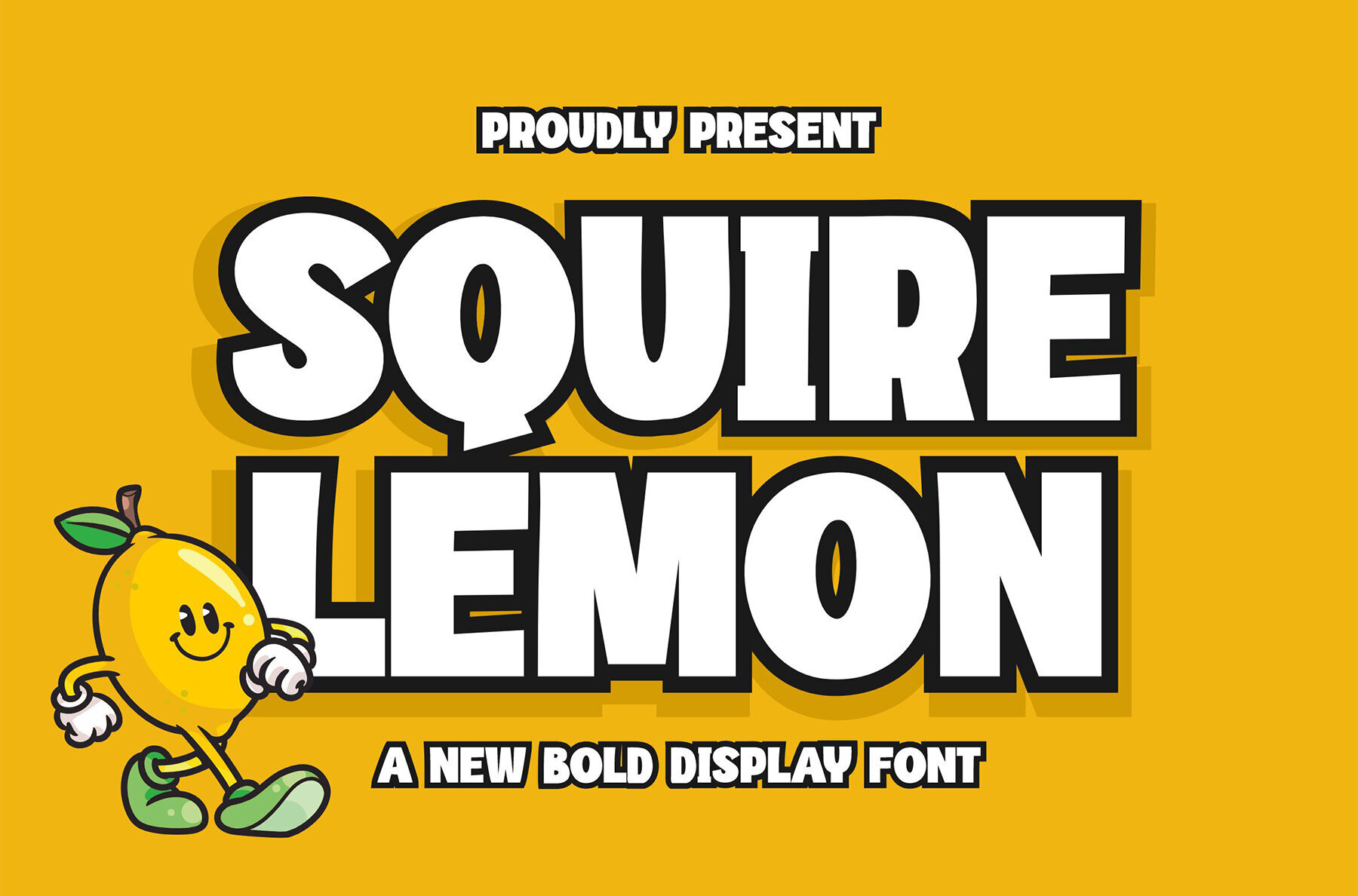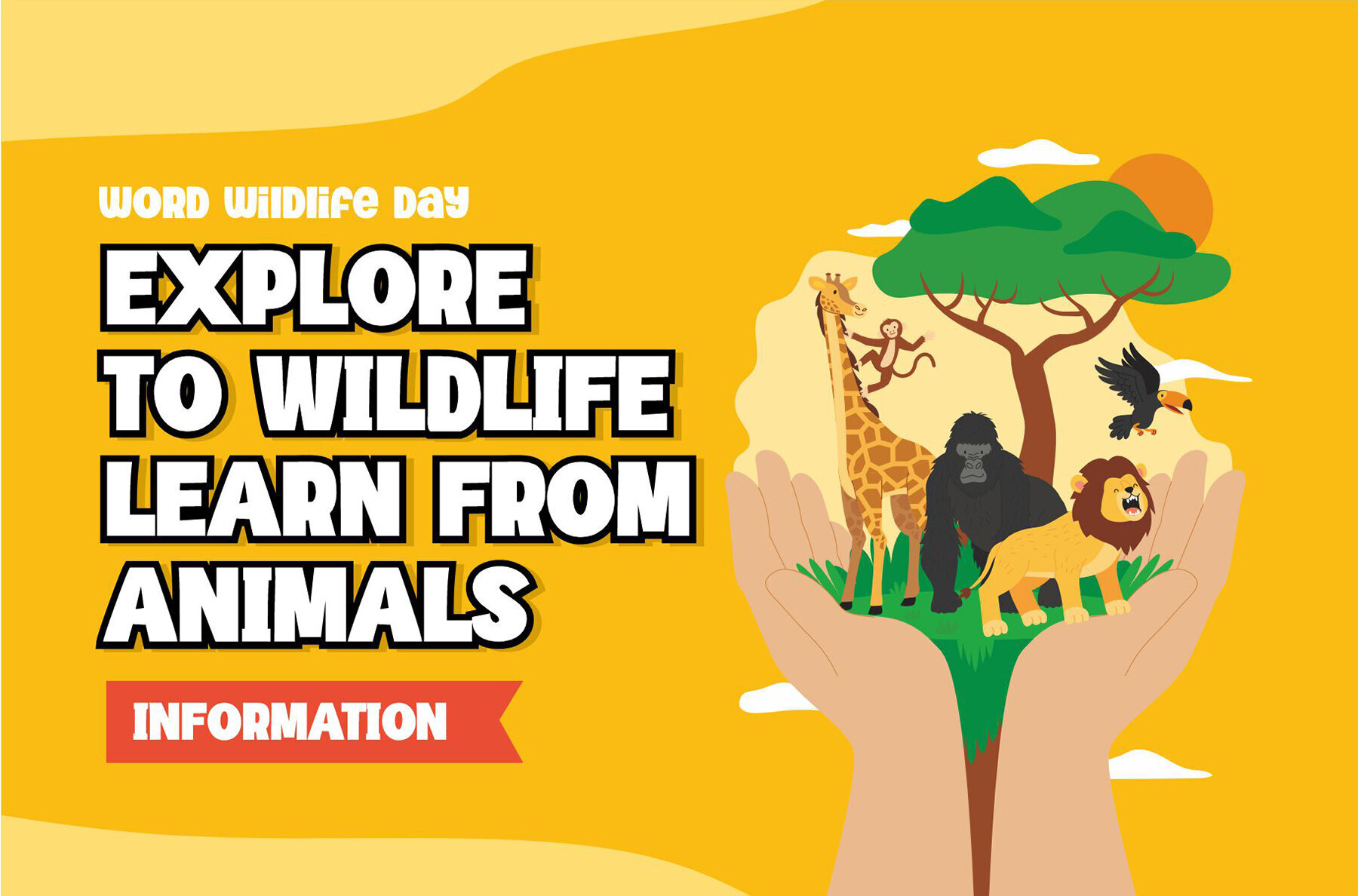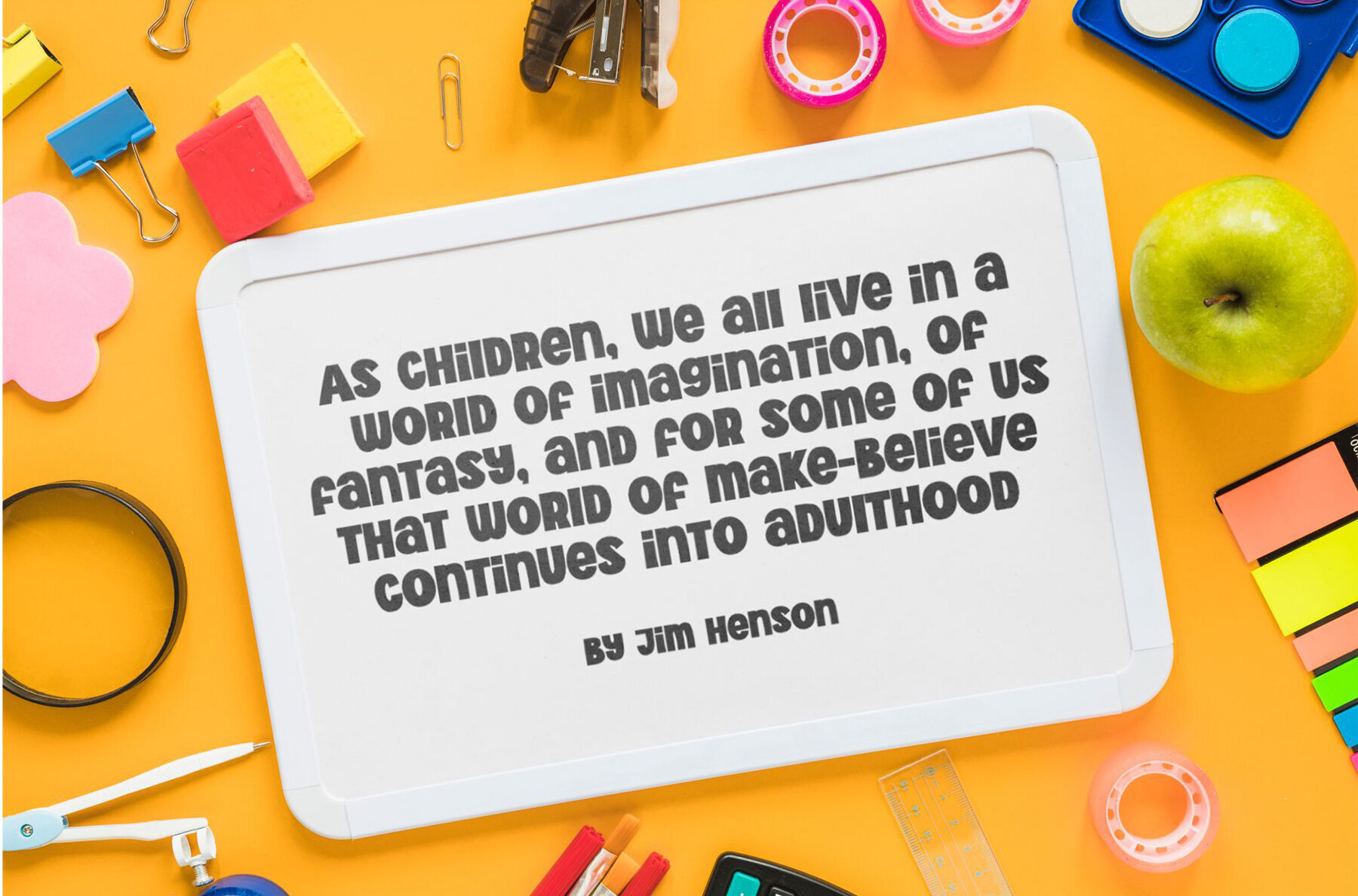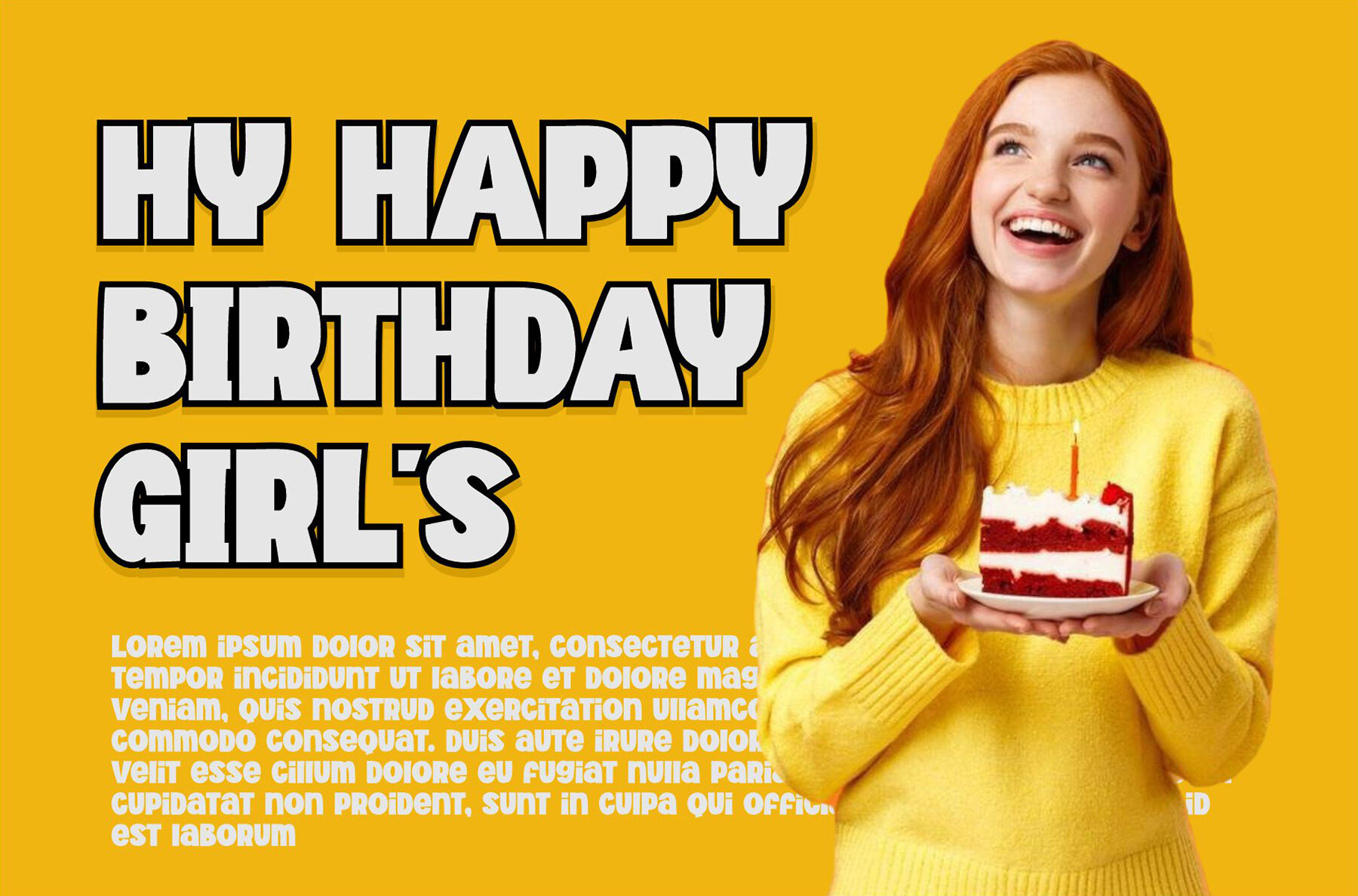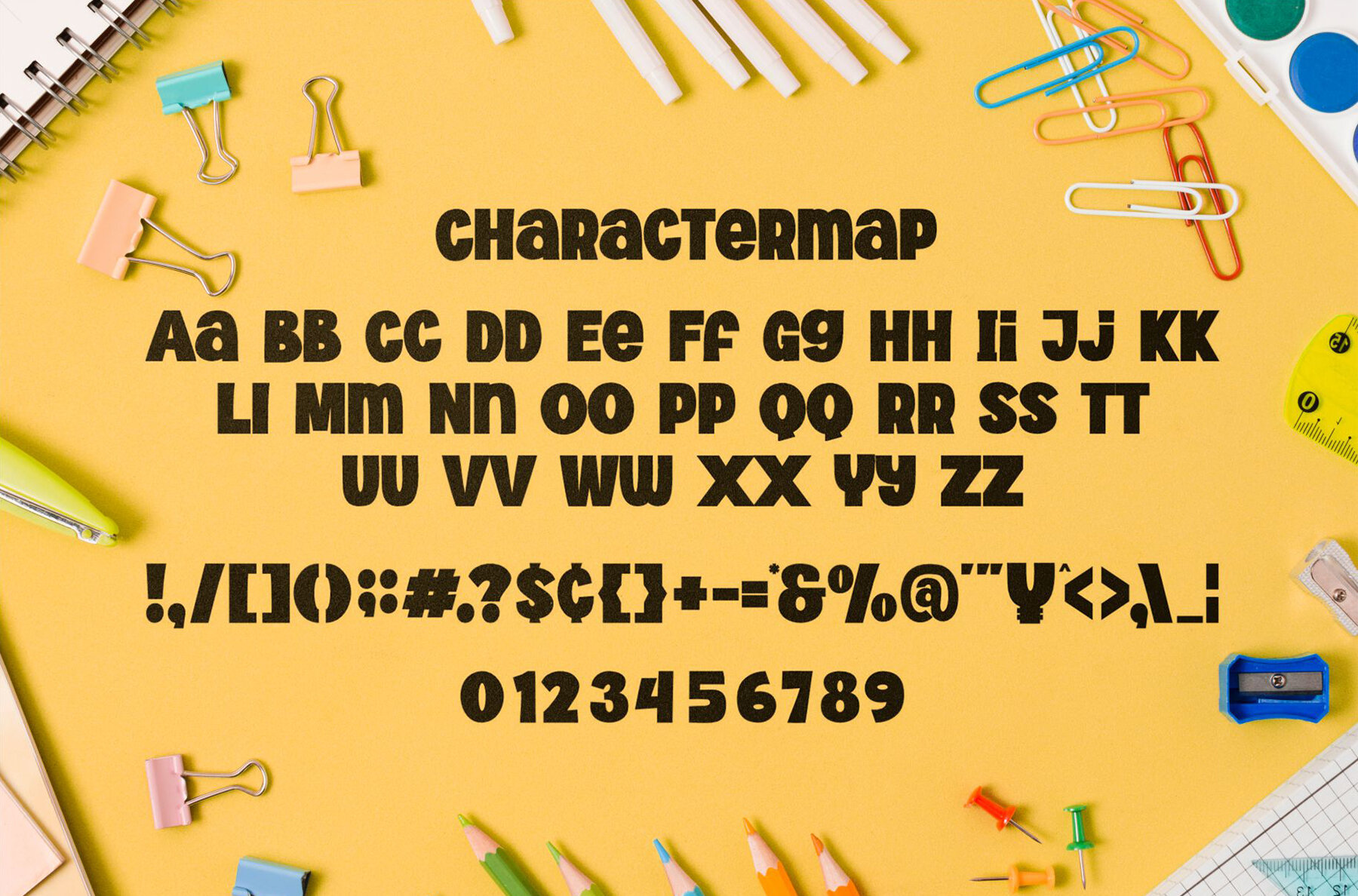
Squire Lemon Font
Squire Lemon
Squire Lemon is a bold, modern sans serif font known for its versatility and clean design. Perfect for a range of applications from logos to headlines and packaging, this font is designed to stand out with its minimalistic style. It offers an array of stylistic alternates, giving designers the flexibility to customize their projects and bring unique visions to life.
Available in three different weights, Squire Lemon allows for a wider range of design options, making it ideal for crafting distinct and versatile visuals. Whether you're working on posters, branding, or any other creative endeavor, Squire Lemon provides the tools needed to push the boundaries of design. Let your creativity flow with this adaptable typeface.